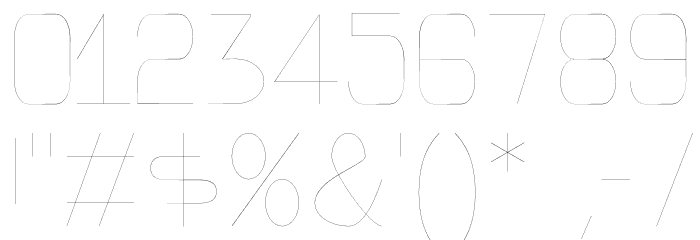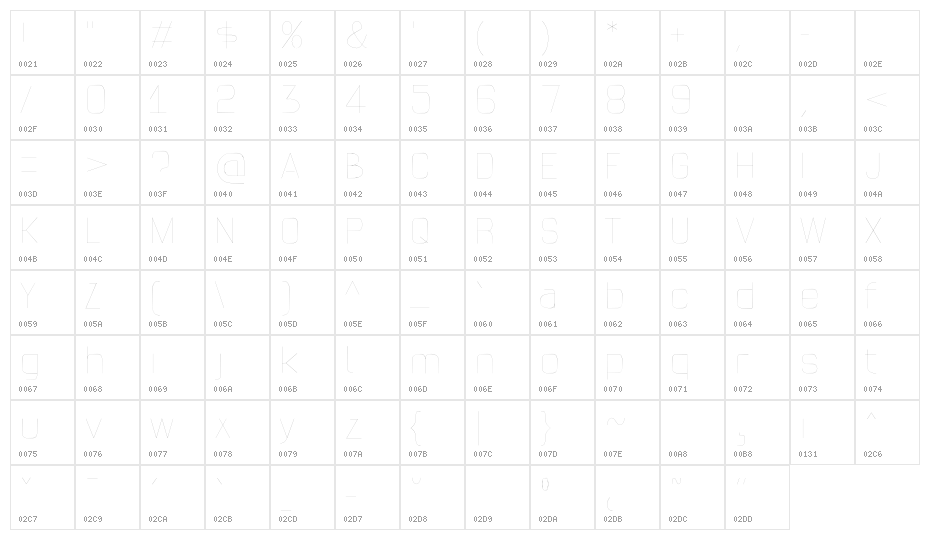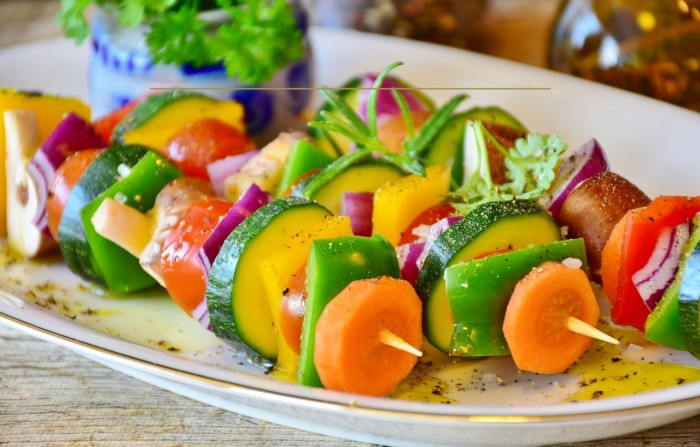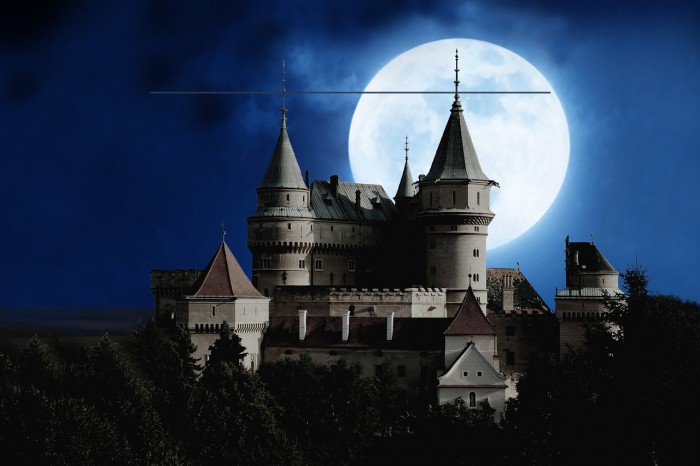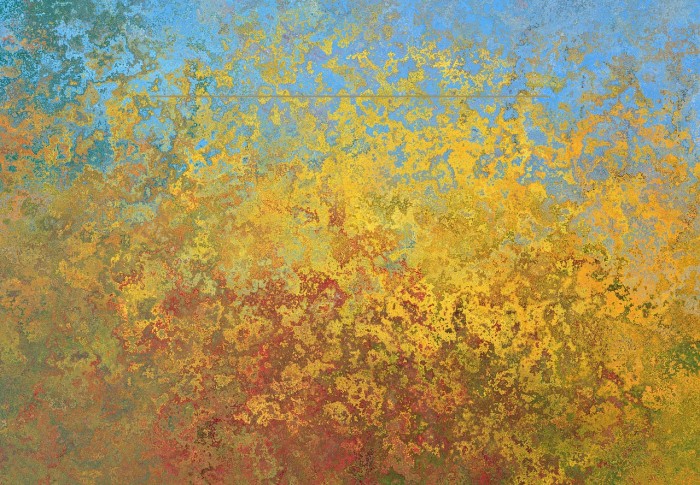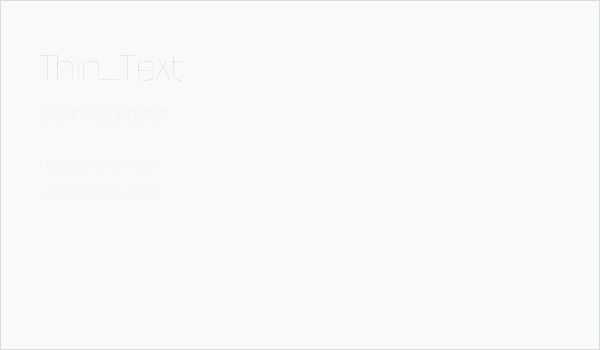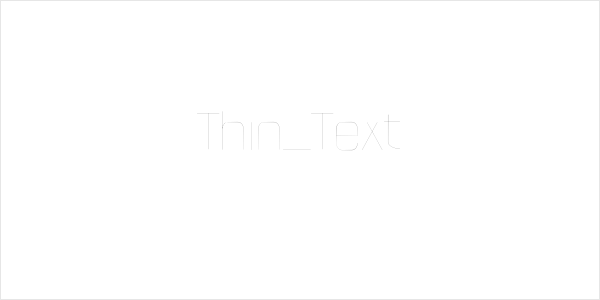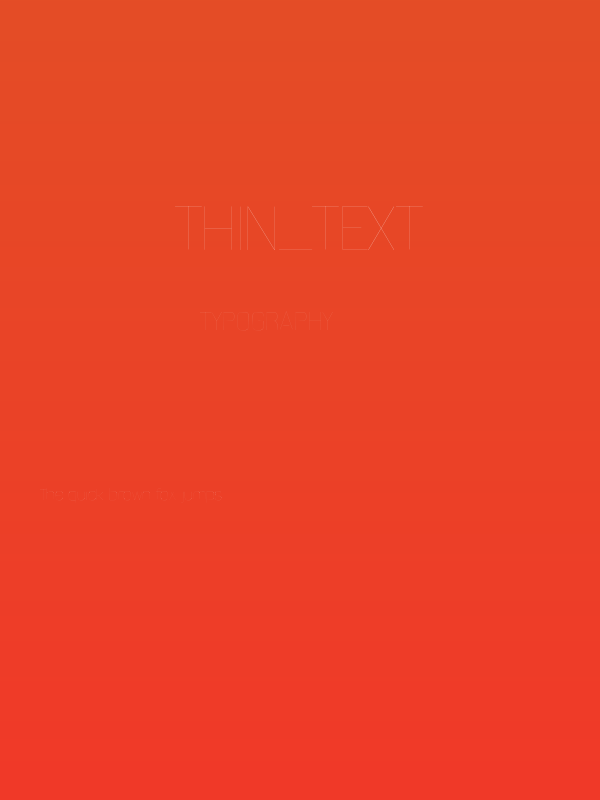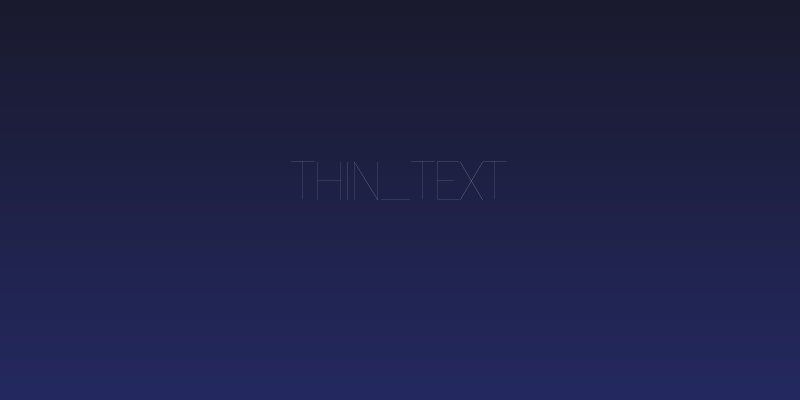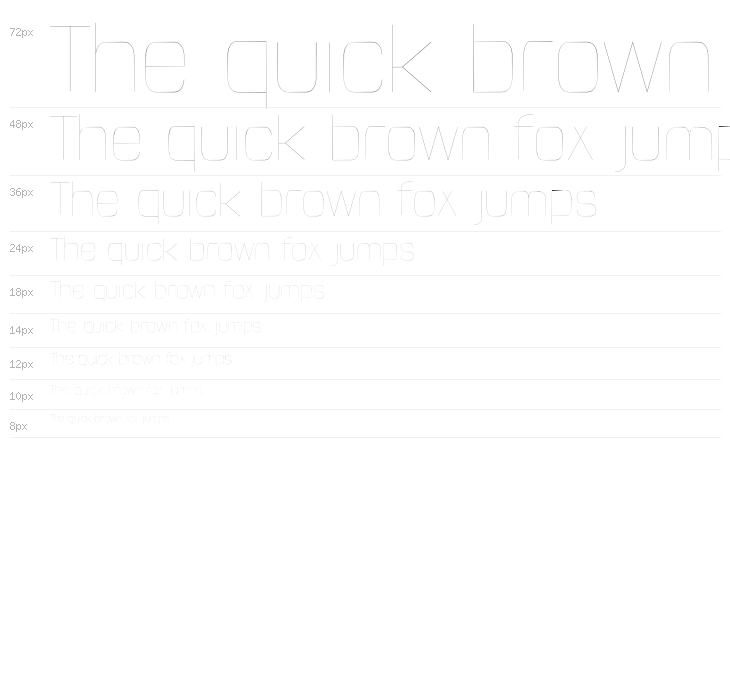
Thin_Text Font
Thin_Text Description
This font features a sleek and minimalistic design with thin, clean lines that create an airy and modern appearance. The characters are evenly spaced, contributing to a balanced and harmonious look. Its geometric shapes and uniform stroke widths give it a contemporary feel, making it suitable for modern design projects. The uppercase and lowercase letters maintain a consistent style, while the numbers and special characters complement the overall aesthetic. This font is ideal for projects that require a subtle yet sophisticated touch.
| Proposed Projects | Ideal for branding, minimalist posters, modern websites, and elegant invitations. |